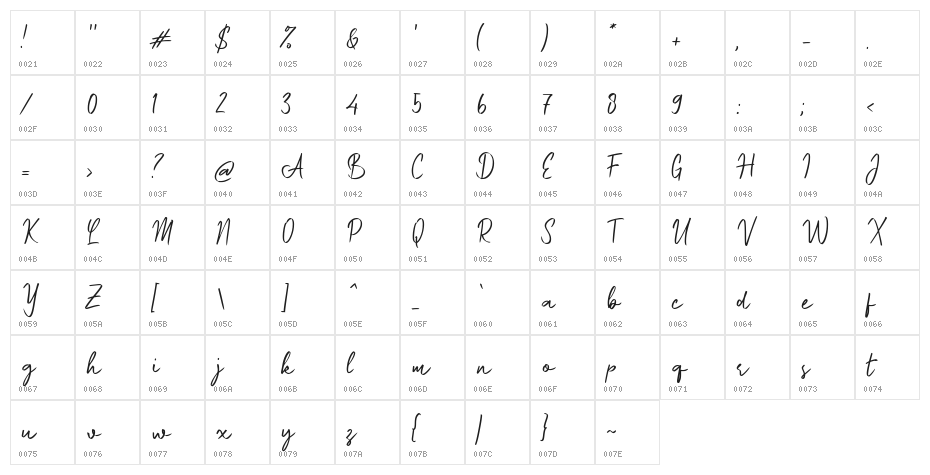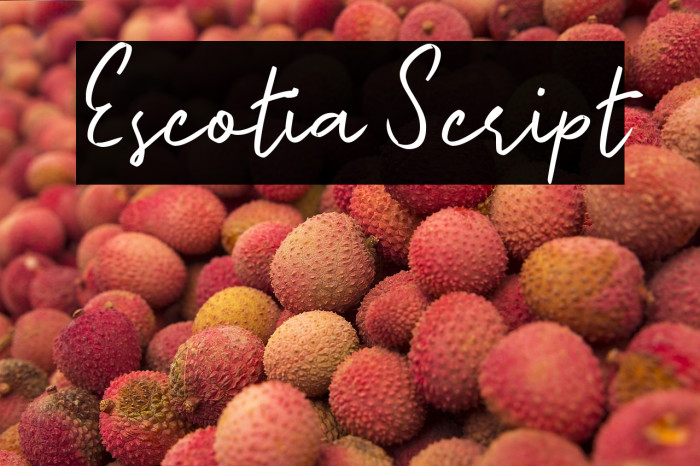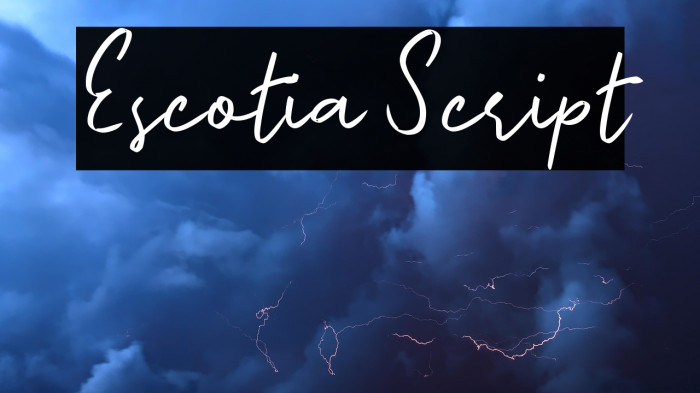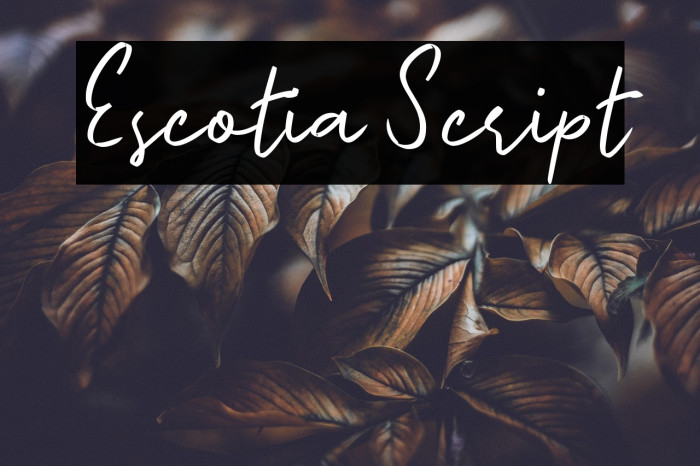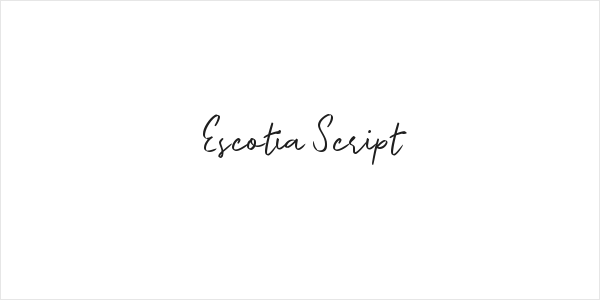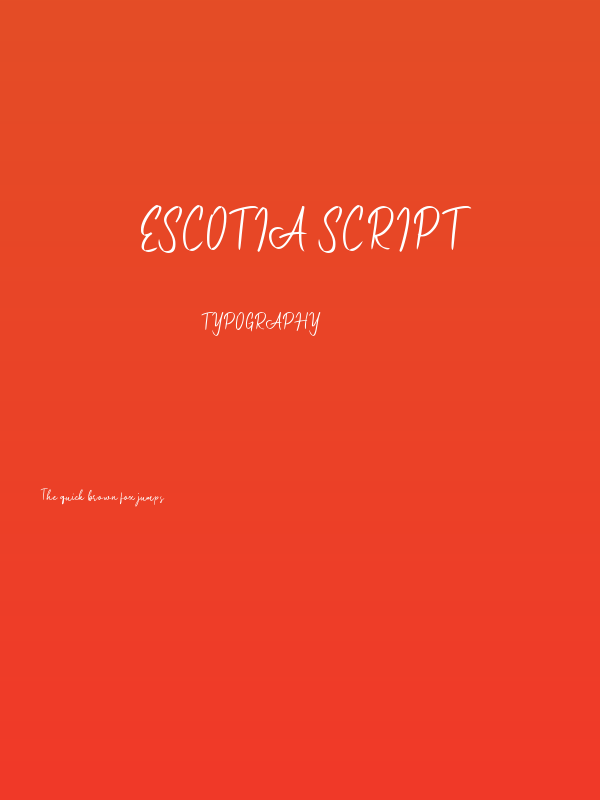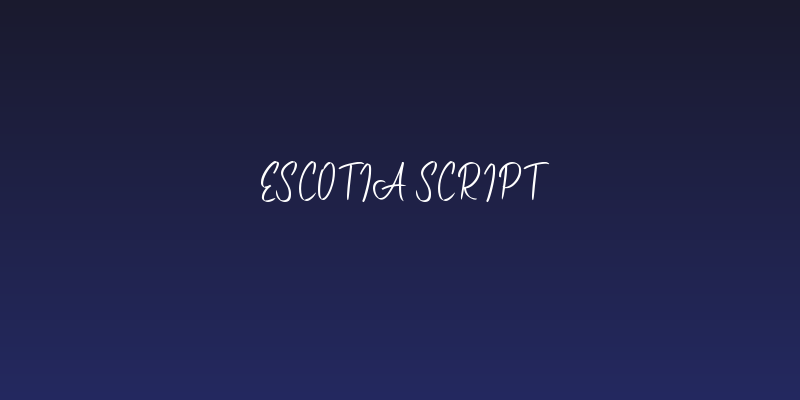
Escotia Script Font
Escotia Script Description
This font exudes a graceful and fluid style, characterized by its elegant script form. The uppercase letters are tall and slightly slanted, with smooth curves and delicate flourishes that add a touch of sophistication. The lowercase letters maintain a consistent flow, with rounded forms and subtle connections between characters, enhancing its cursive nature. The numerals are well-integrated, matching the overall aesthetic with their sleek and stylish appearance. Special characters are thoughtfully designed, complementing the font's artistic flair. This script font is perfect for projects that require a personal and artistic touch.
| Overall Style | Elegant |
| Use Case | Logos, Invitations, Decorative text |
| Proposed Projects | Ideal for wedding invitations, greeting cards, branding, and elegant logo designs. |